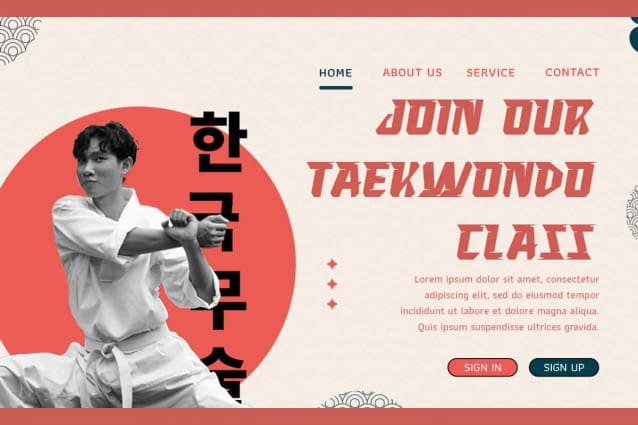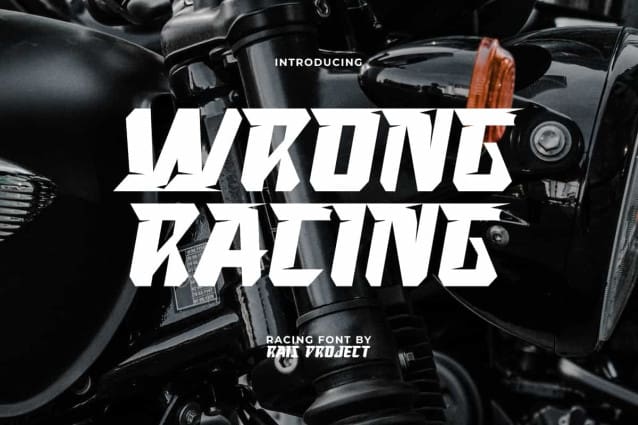
Wrong Racing Font
Wrong Racing Font is a distorted strong grunge racing sport display font with great style. The lines in this font give a sense of speed that fits perfectly with automotive and sports themed designs. It will be good for any designs, such as advertisement, brand image, custom design, invitation, label, marketing material, poster, product packaging, quotes, signage, stationery, website page, and more!